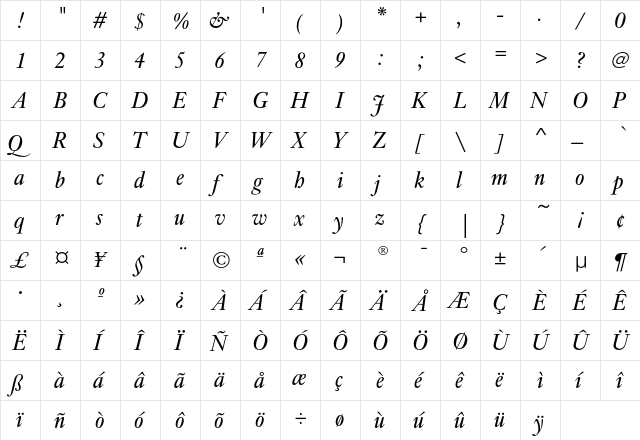
NikisEF-LightItalic Regular
Design Context for NikisEF-LightItalic Typeface
NikisEF-LightItalic offers clean, dependable letterforms without strong stylistic allegiance, making it a practical choice for designers who need flexibility. The slanted form adds forward momentum and visual energy. Its slender proportions lend an understated elegance to any composition.
Pro Tip: Use NikisEF-LightItalic for emphasis, pull quotes, and subheadings where its slanted energy can add rhythm to the layout.